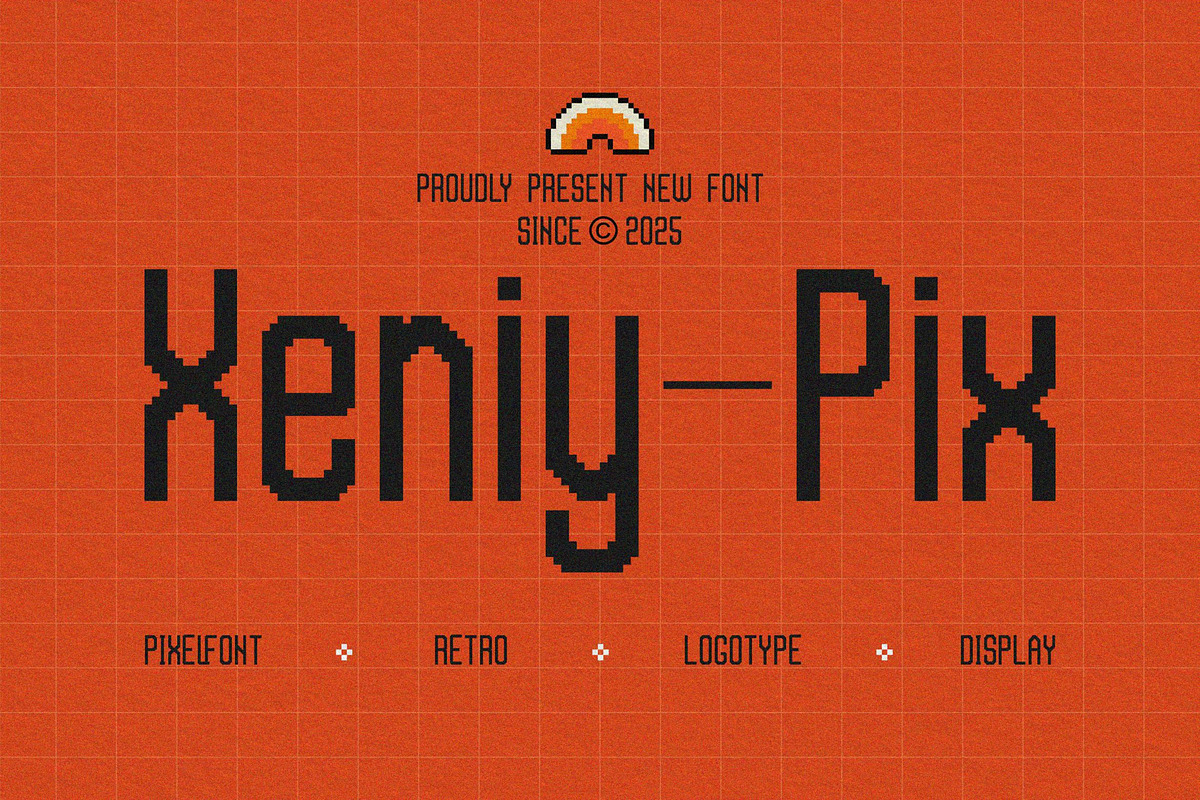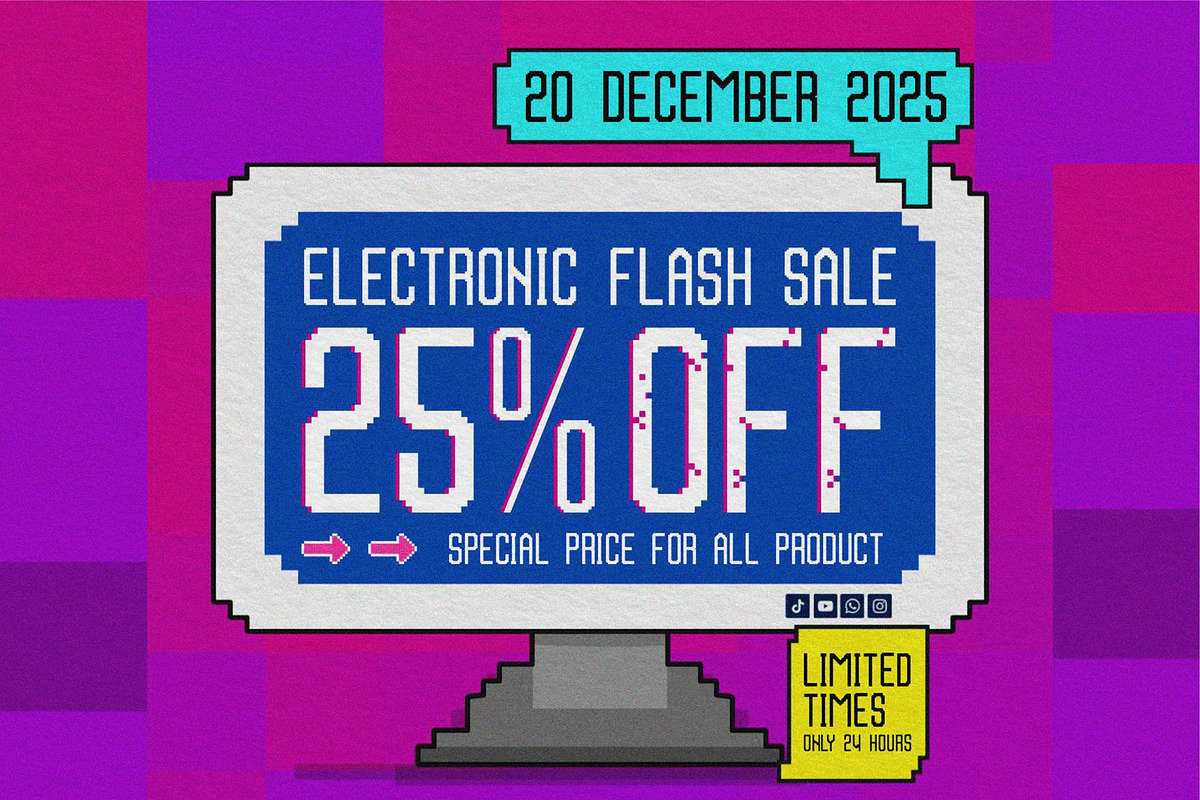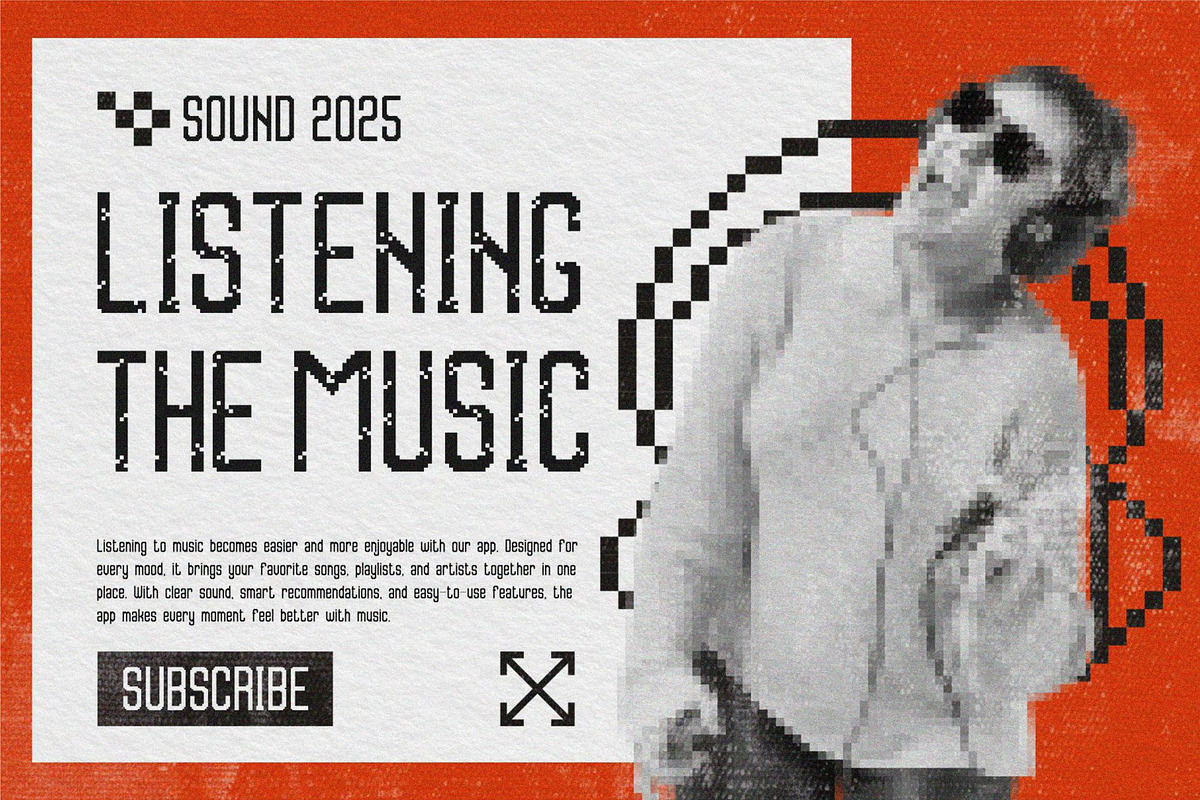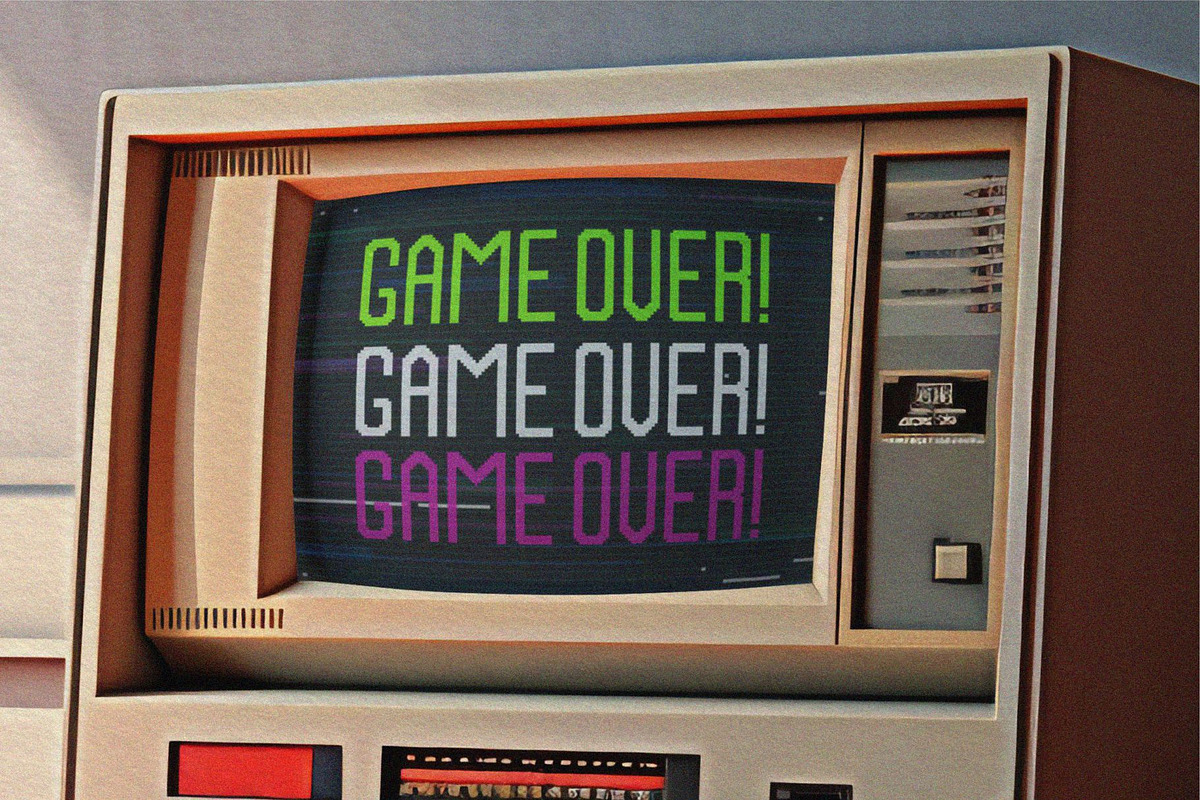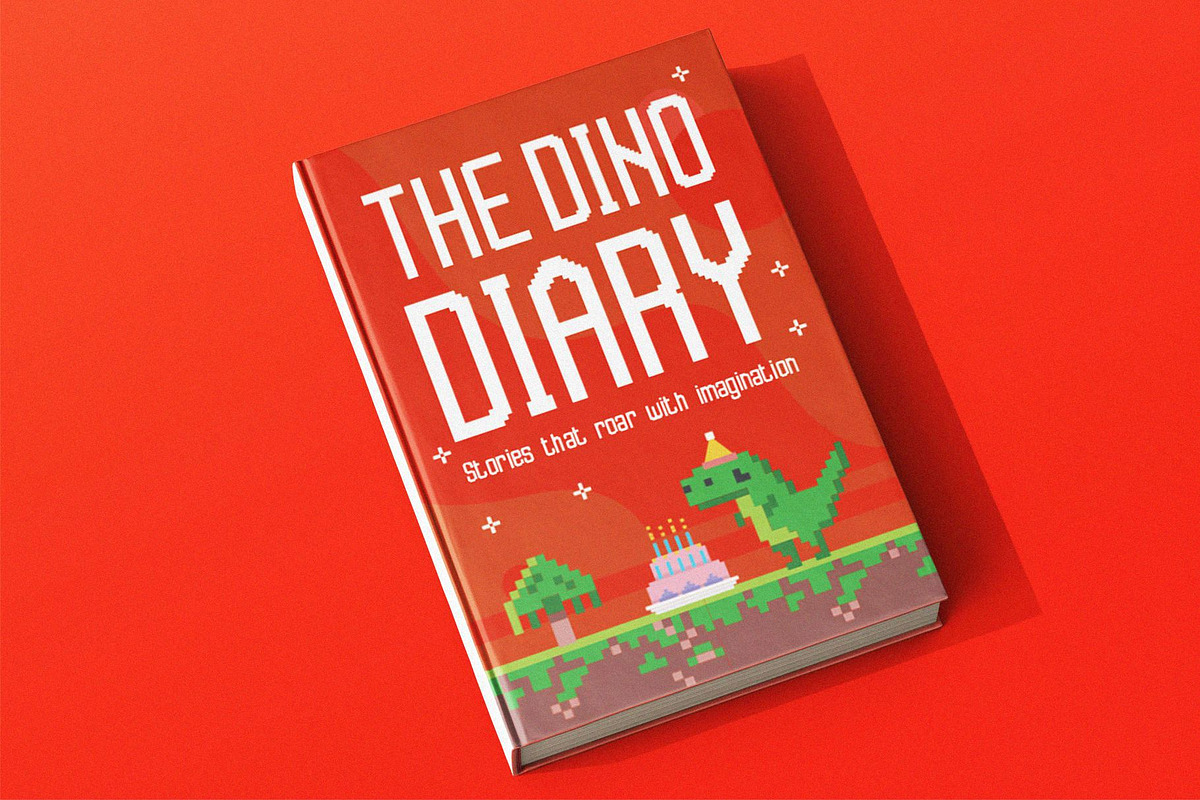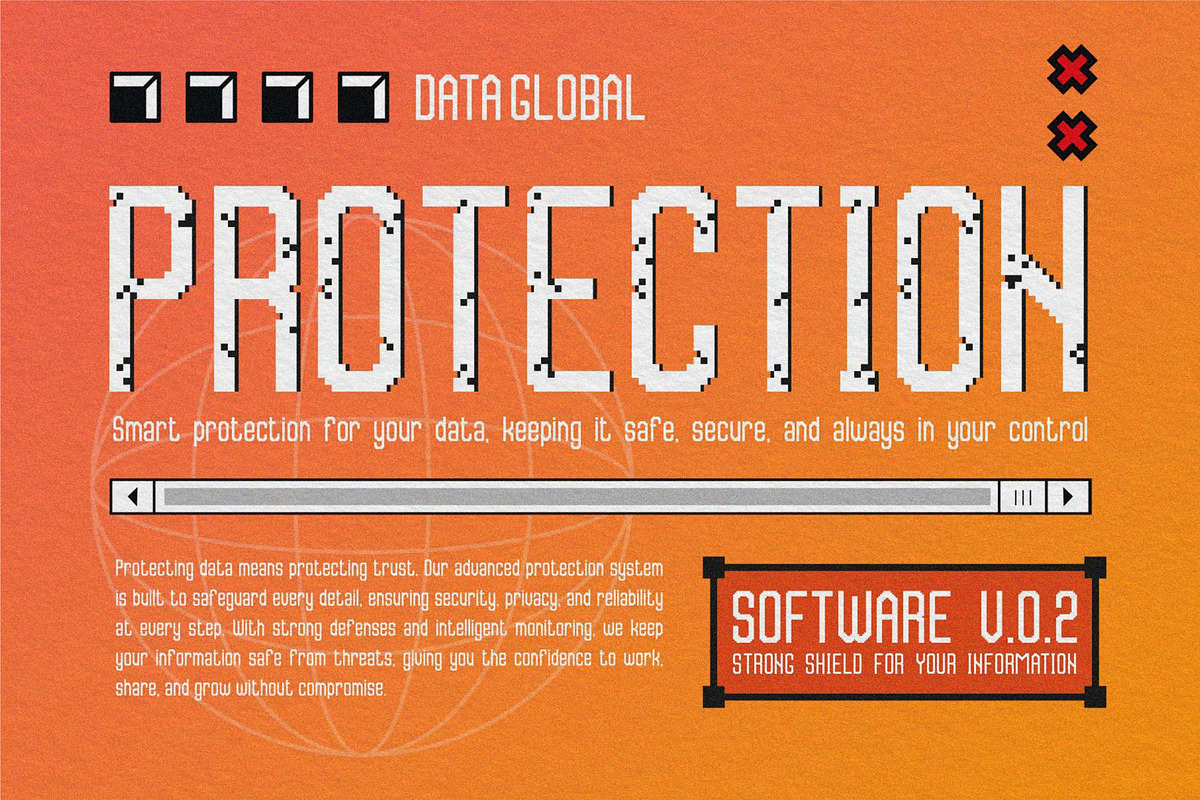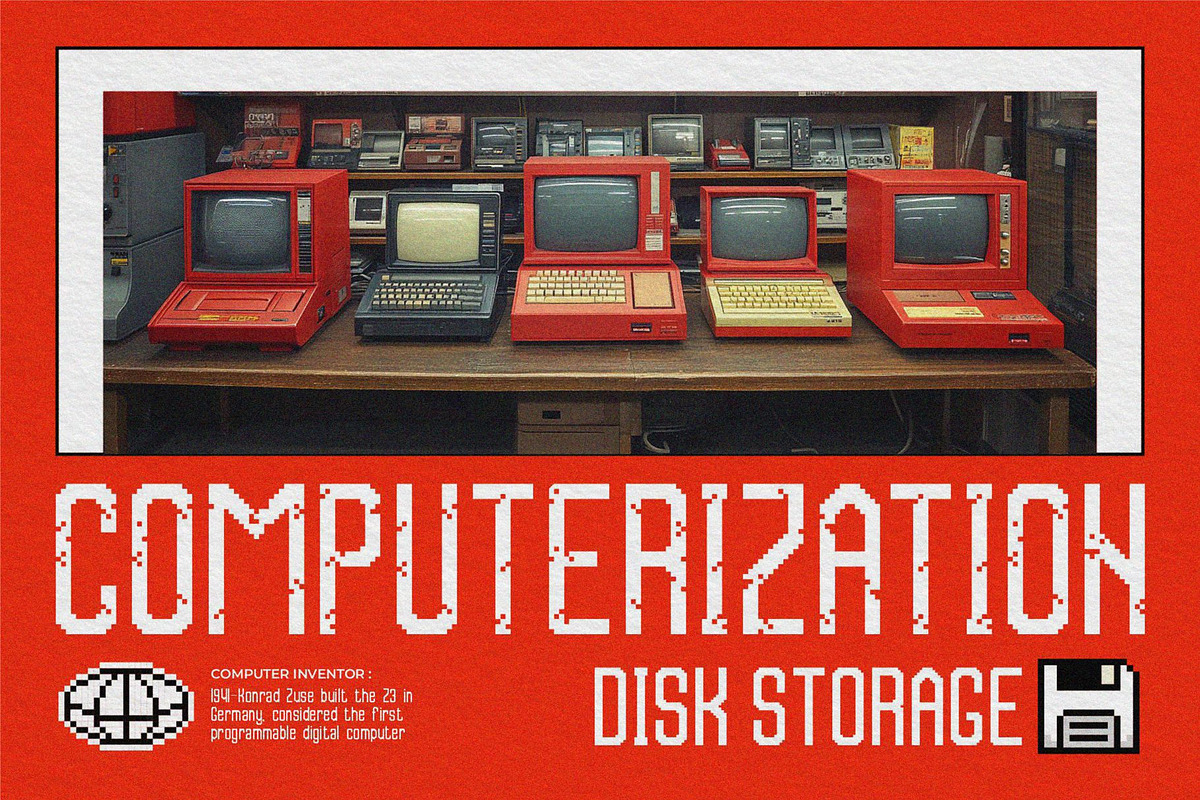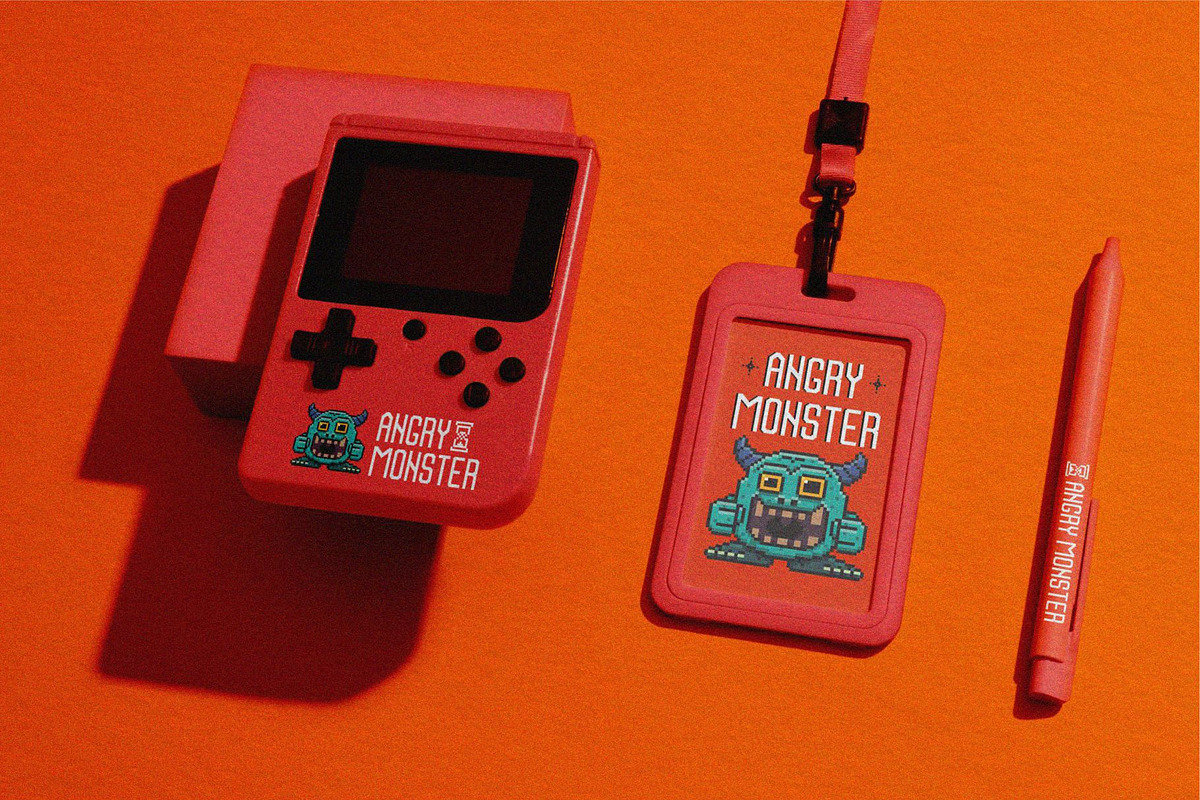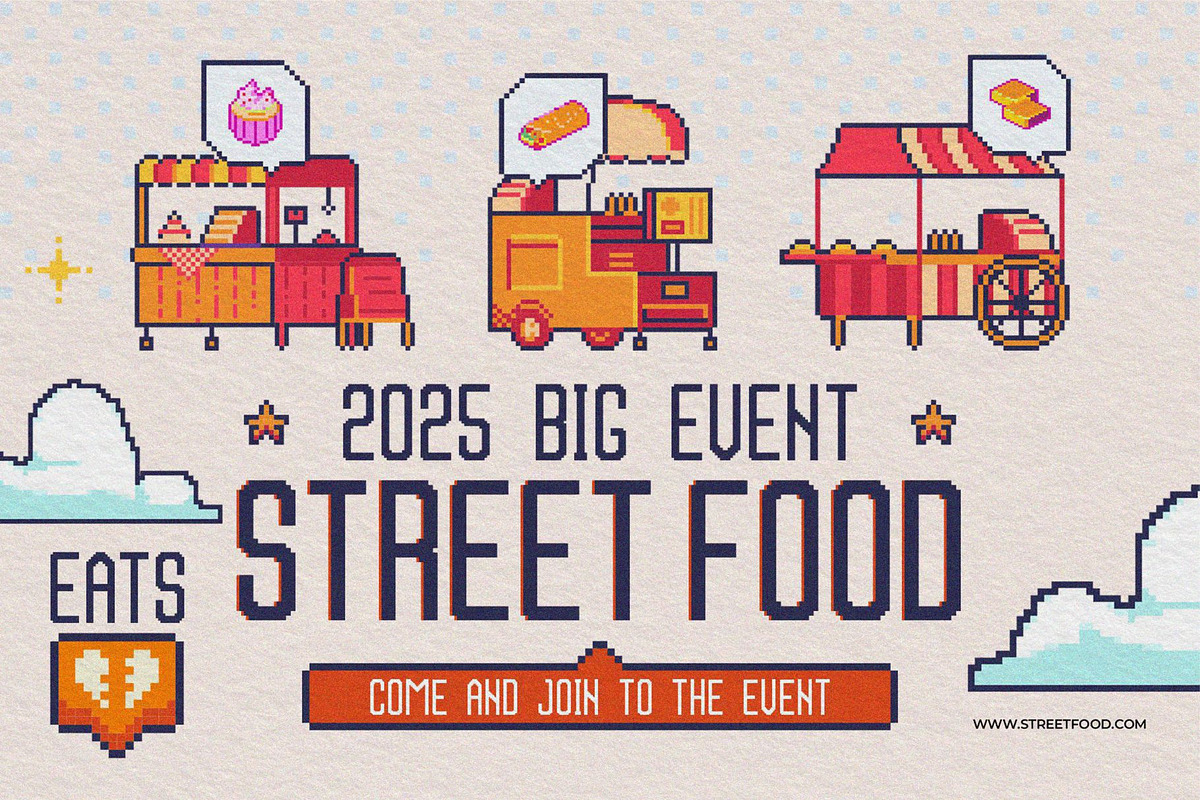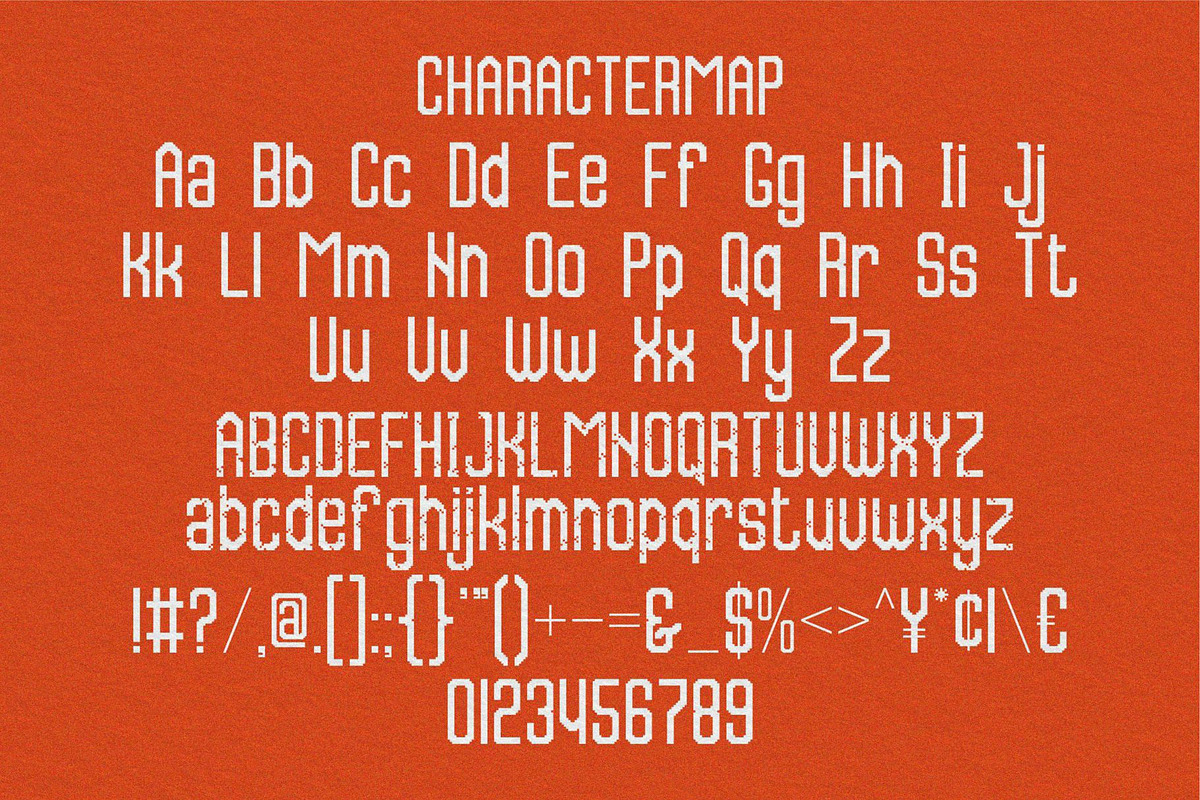
Xeniy Pix || Sans Serif Retro Pixel
Xeniy Pix Sans Serif is a retro pixel font type for all branding and logo designs. This retro vintage sans serif font has a beautiful character. This font is suitable for invitation card designs, cool logos, movie titles, movie names, business cards, book titles, brand names, and various other designs. Xeniy Pix Sans Serif is a smooth serif font that exudes sophistication and the moment. Its stylish alternate make this font a perfect partner for any project.
- alternate